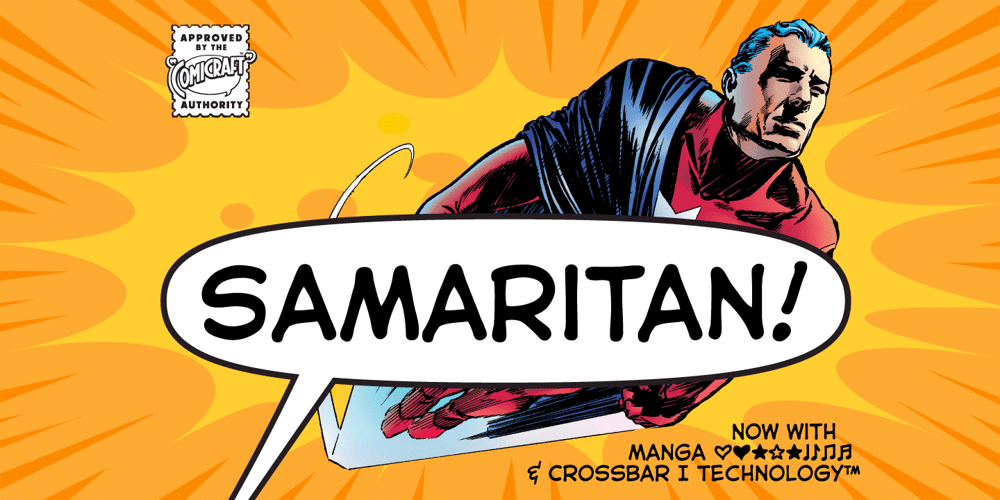
Samaritan
Samaritan font
Samaritan Font Family was designed by Richard Starkings, John Roshell and published by Comicraft. Samaritan contains 4 styles and family package options. It’s another beautiful day in scenic Astro City, home of post modern gods and ordinary mortals alike. Look into the sky and perhaps you’ll get a glimpse of everyone’s favorite man of the hour, if not the man of tomorrow… SAMARITAN!